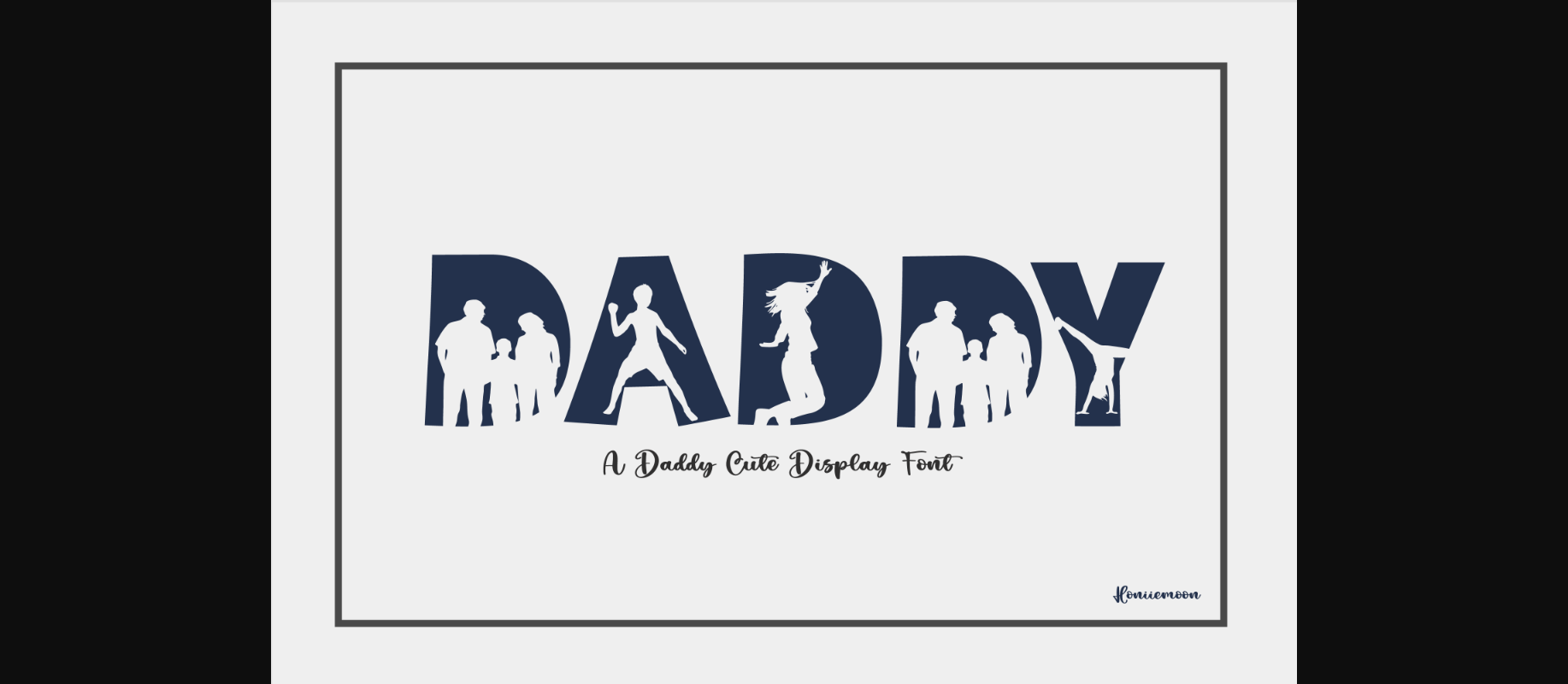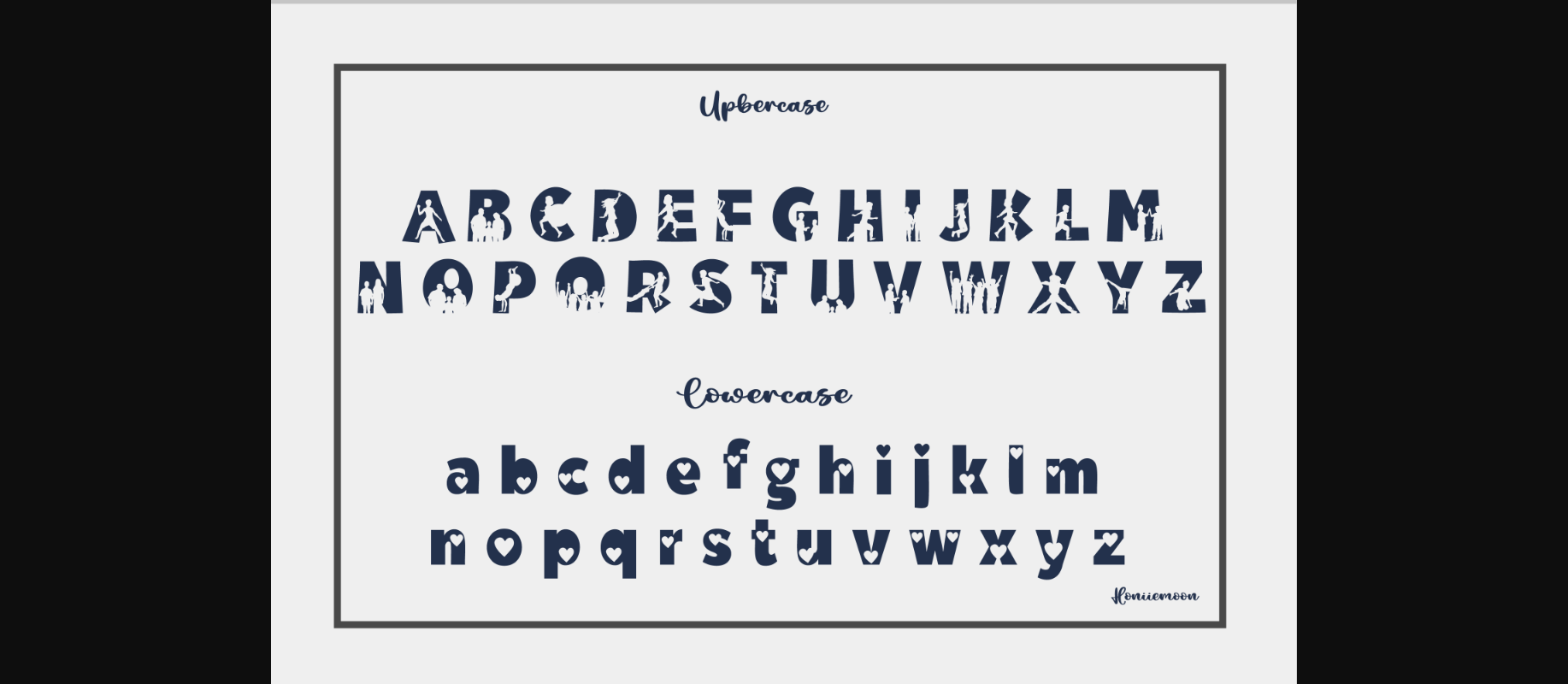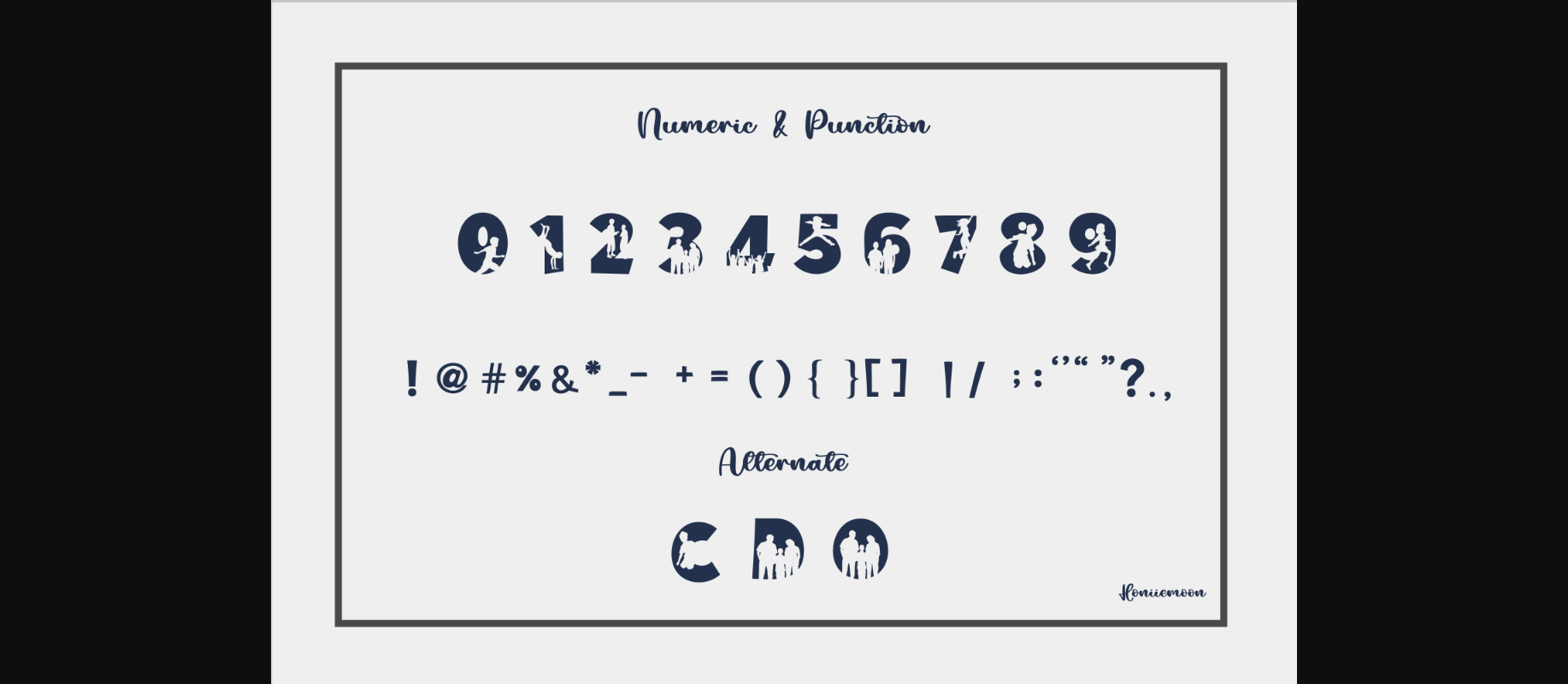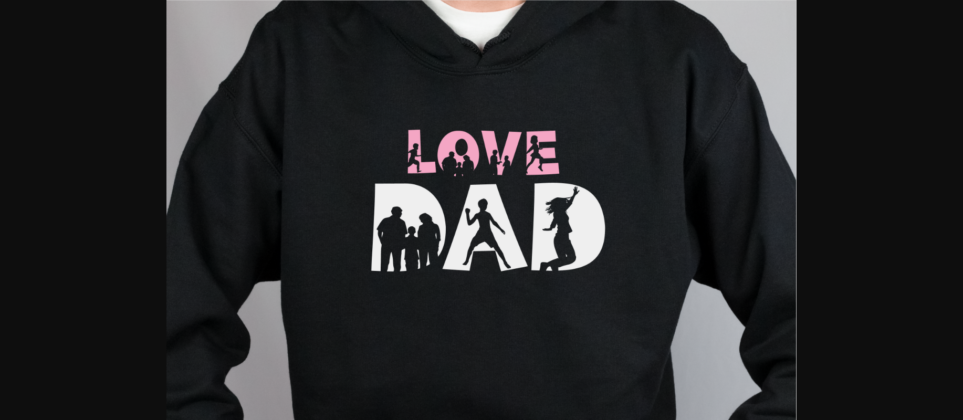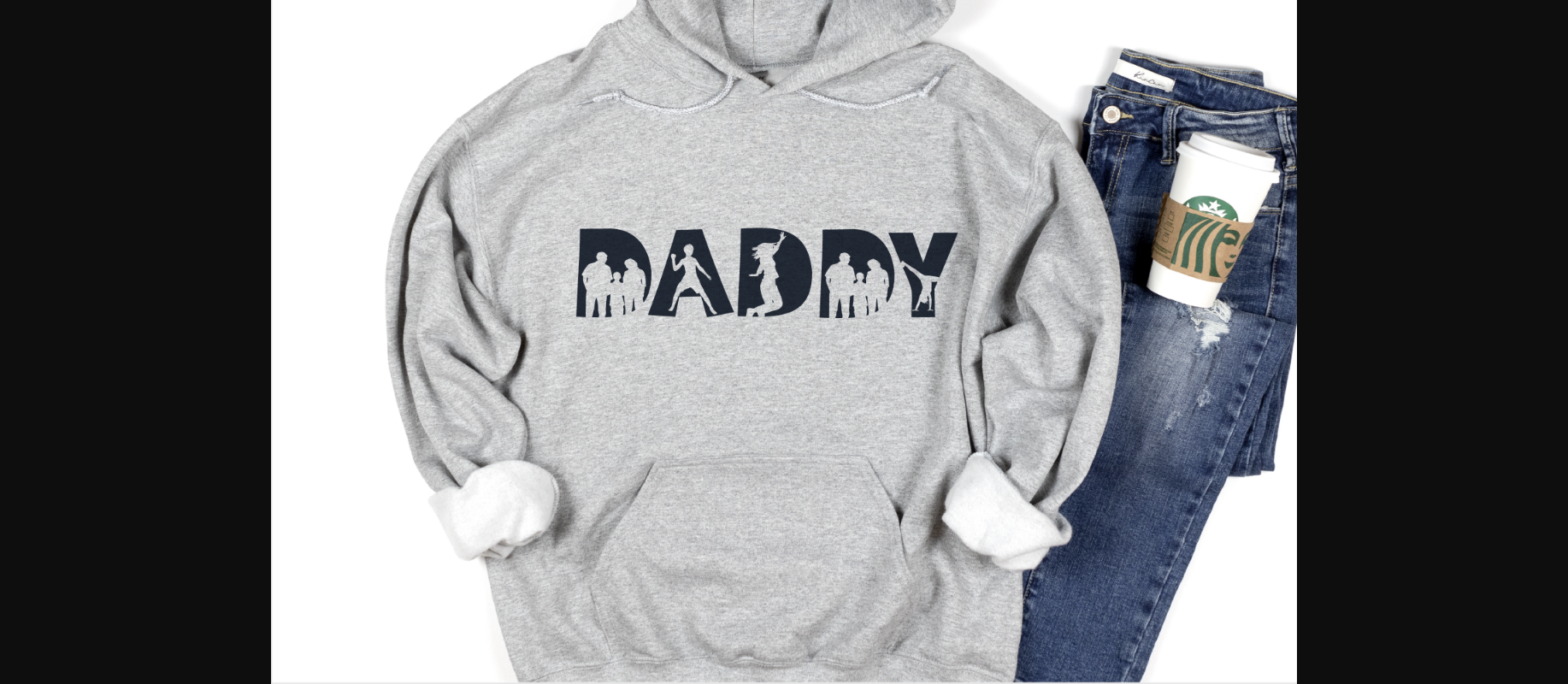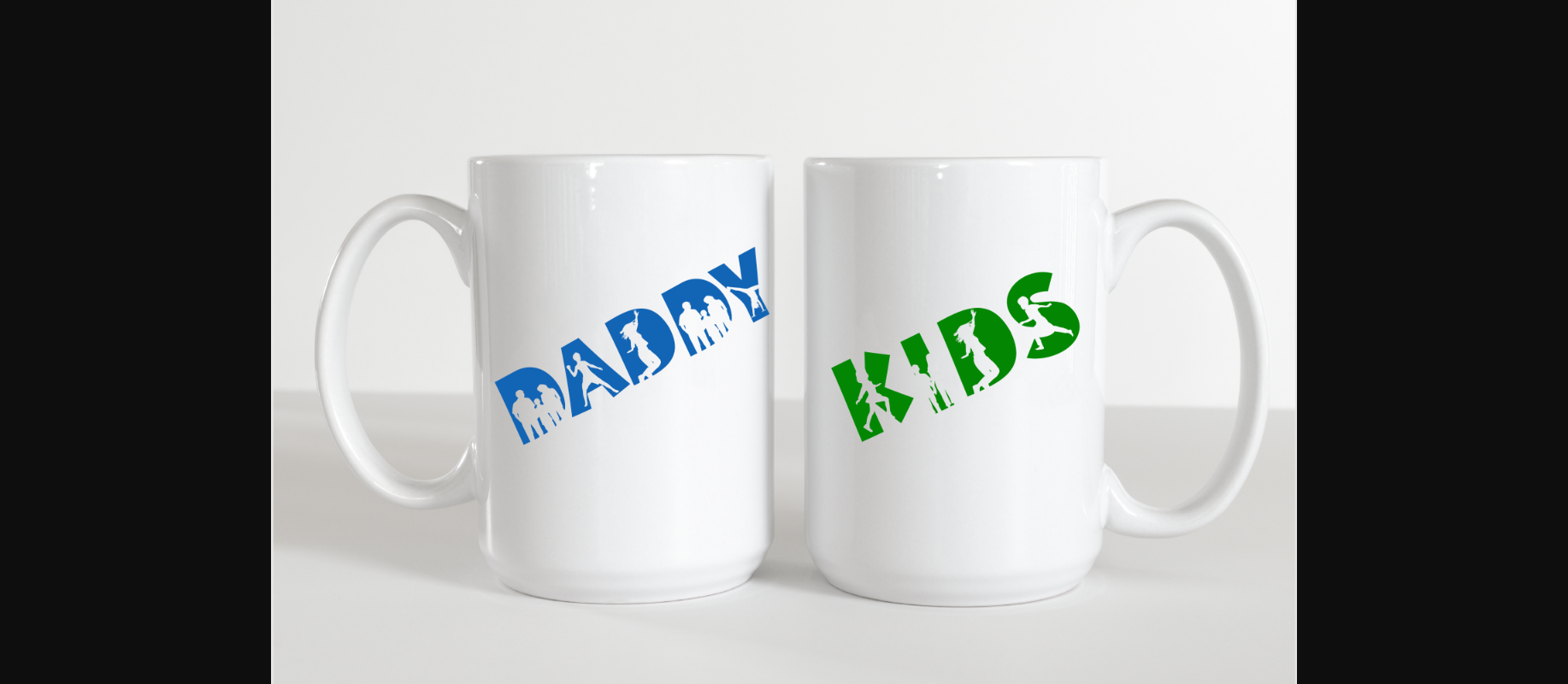
Daddy Font
About Daddy Font
Daddy is a cool and fun decorative font. It looks both cute and jolly and it will enhance each of your designs. The only limit is your imagination. Add this great decorative font to each of your creative ideas and notice how it makes them come alive!